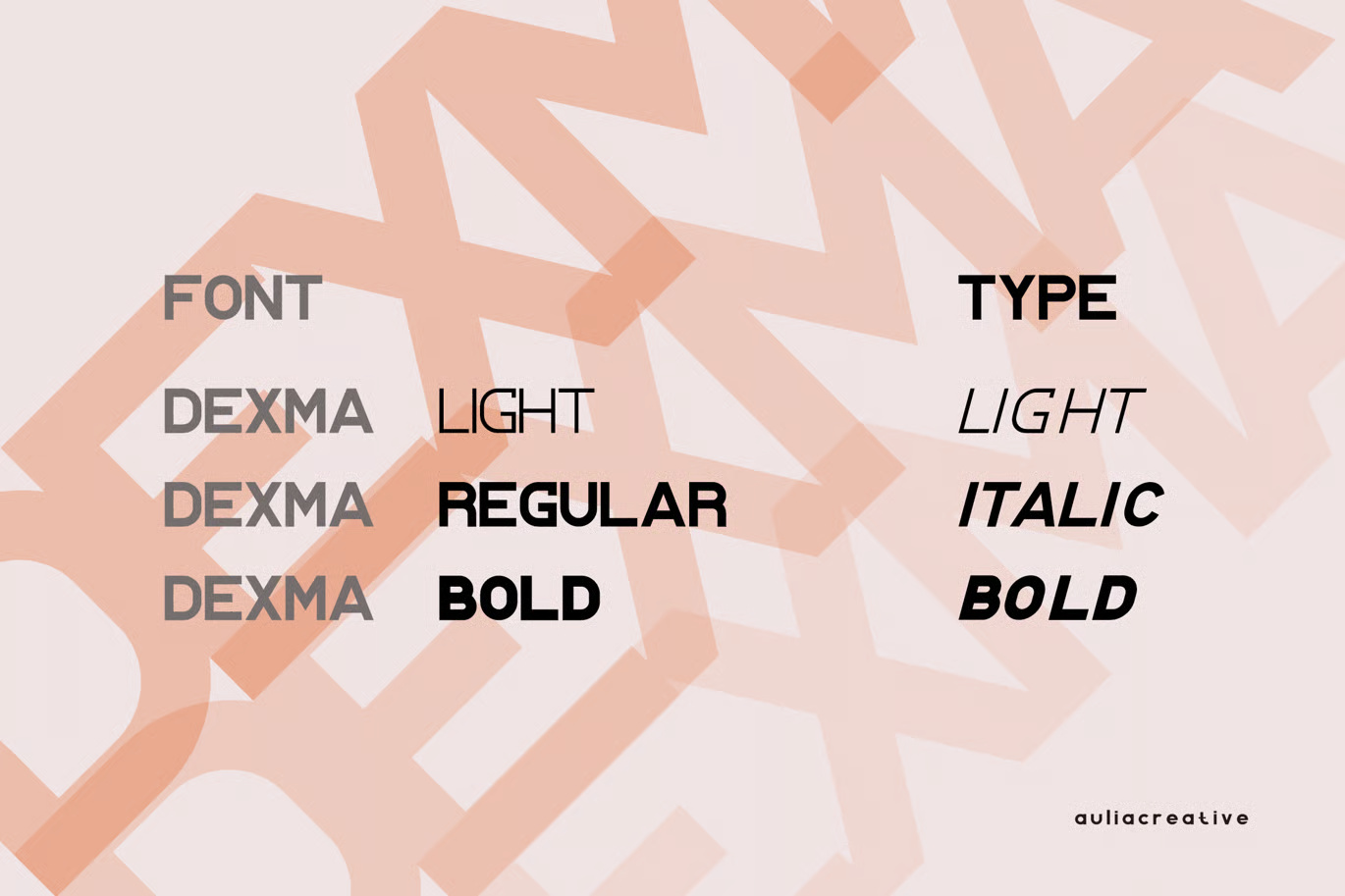
Dexma Auli – Display Modern Font
Dexma Auli – A modern display sans-serif font with a sleek and contemporary design. Perfect for creating eye-catching logos, branding materials, and stylish jersey typography. Its bold yet refined letterforms make it an excellent choice for projects requiring a strong visual impact.
Dexma Auli – Display Modern Sans-Serif